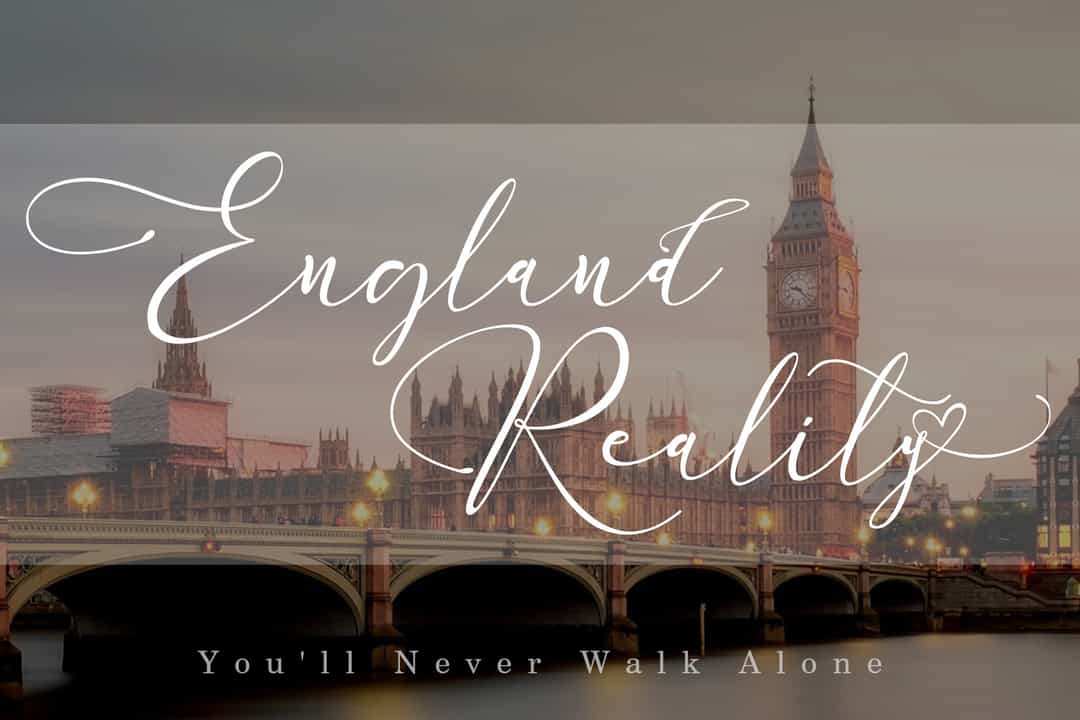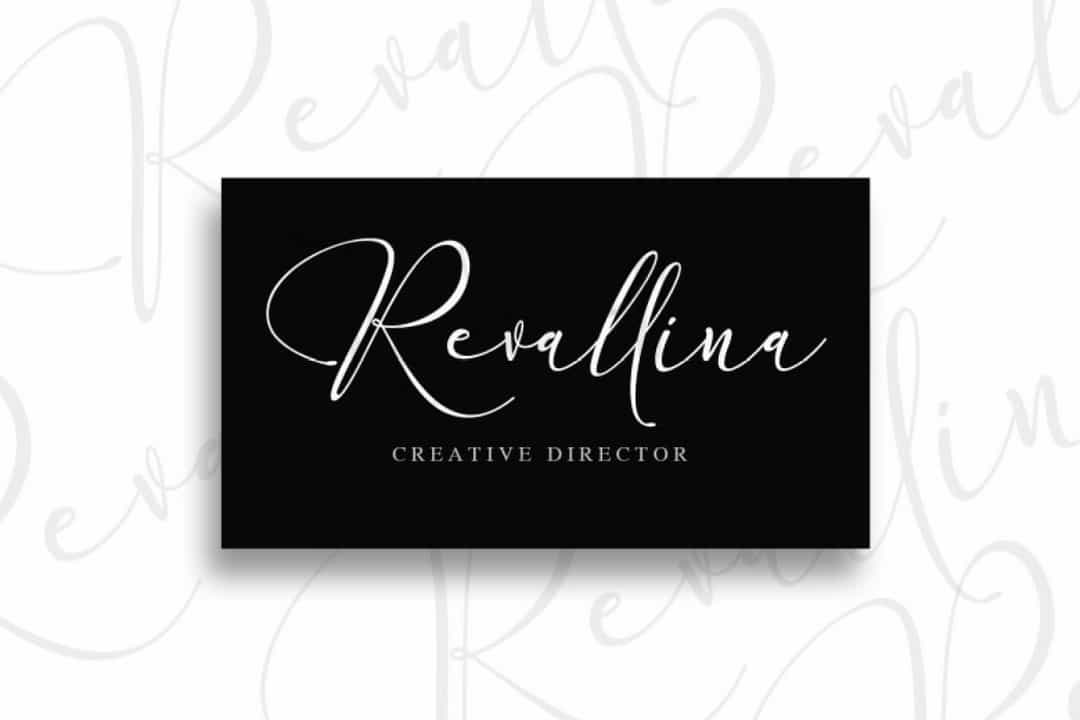
England Reality is classified calligraphy handwriting font and has a very elegant look to it, as seen in England Real Font. Since its launch, the modern look can be observed and this font may be used in your design works.